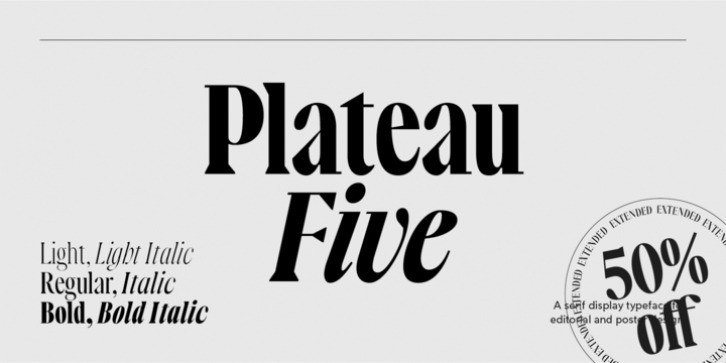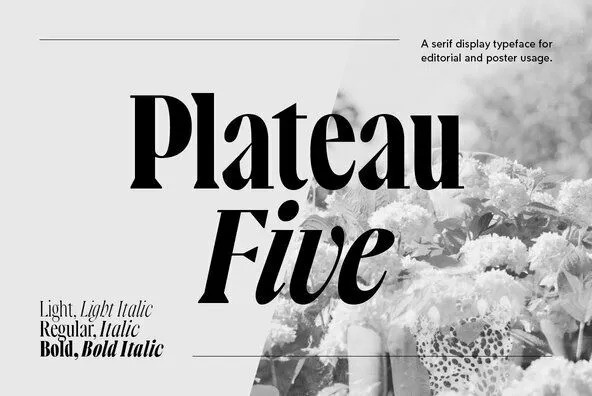
Plateau Five Font
Plateau Five Serif Font was designed by René Rieger and published by René Rieger. Plateau Five contains 6 styles and family package options. The font is currently #38 in Hot New Fonts.
Plateau Five is a display typeface with an appearance mostly based on forms of the ­transitional period between Baroque and Neo-Classicism and has an underlying rigid structure. Its capital letters are heavy, the serifs ­prominent and the generally expressive tone that comes with italics is muted.
Plateau Five is based on the principle of even distribution, rooted in the social ideas that emerged with modernity during the 1920s in the western world. Applied to the typeface at hand this means that most letter widths of the Latin ­characters are optically equal.
Although patterning, i. e. defining grids for letters, might have been around since textura type to provide a less laborious production process of letter punches, the aspect of construction was well documented in the 18th century with the commission of a typeface by French royalty and rose to prominence between the two world wars with ideas by a. o. Theo Van Doesburg of De Stijl or Herbert Bayer of the Bauhaus. Plateau Five is constructed and theoretical as Schmidt Grotesque or alfabet, whereas a serif face asks for more compromise in the variety of used forms and must eventually miss to fulfil the intended outset. When designing Futura with the intention to avoid historicism and apply his utopian vision of typography, even Renner compromised by using ancient roman ­proportions for its ­capital letters. Plateau Five leaves its ­guiding ­principle behind for letters like the f, r or t, to account for readability and the ­preservation of a text face.
Plateau Five aims for a combination of the two seemingly antagonistic terms of ­individual expression ­embodied by ­calligraphy and the removal of ­signature by utilising rigid geometry.